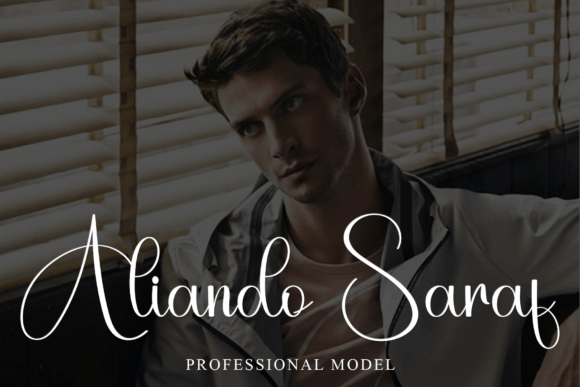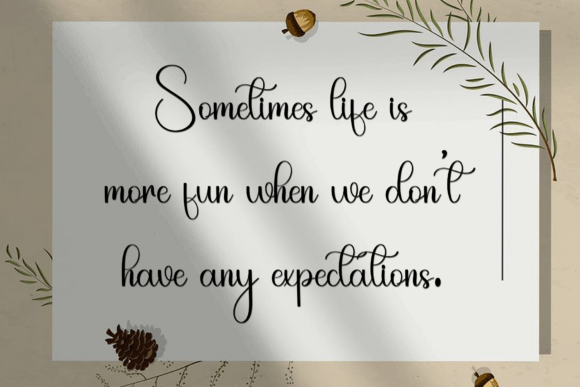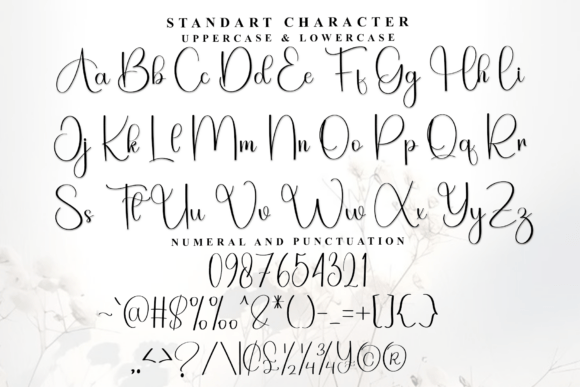
Introduction to Hummer Font
Hummer is a beautiful and eye-catching font designed with a soft, unique touch.
Its distinctive strokes give it a special character, making it meaningful and versatile for future use With various characters, it’s perfect for design projects, crafts, and other creative works.